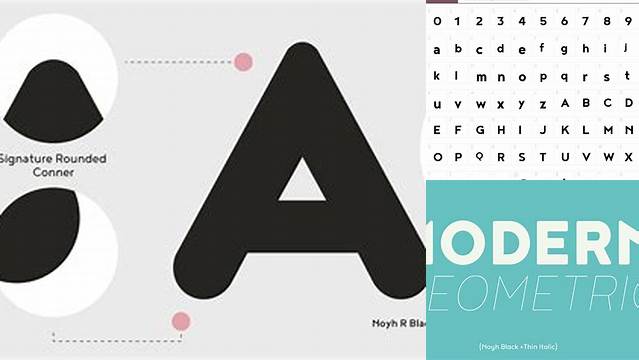
Noyh Bold Font: Free Download & Usage Guide
Are you looking for a modern, bold, and versatile font to elevate your design projects? Look no further! The Noyh Bold font is a fantastic choice for a wide range of applications, from branding and advertising to web design and editorial layouts. In this comprehensive guide, we'll dive deep into everything you need to know about Noyh Bold, including where to find free downloads, how to use it effectively, its characteristics, and more. So, buckle up, design enthusiasts, and let's explore the world of Noyh Bold!
What is Noyh Bold Font?
Noyh Bold is a typeface that falls into the sans-serif category. Sans-serif fonts are characterized by their clean lines and lack of decorative serifs (the small strokes at the ends of letters). This gives them a modern, minimalist, and legible appearance, making them ideal for contemporary designs. Noyh Bold, in particular, is known for its strong, confident character, and excellent readability. The bold weight adds emphasis and visual impact, making it perfect for headlines, titles, and other elements that need to stand out. The appeal of fonts like Noyh Bold lies in their adaptability; they can seamlessly integrate into various design styles, from minimalist and corporate to creative and artistic. The clean lines and strong presence of Noyh Bold make it a go-to choice for designers aiming to convey a sense of modernity and confidence. Its versatility extends beyond print, making it equally effective for digital platforms, including websites and mobile applications. When choosing a font, readability is paramount, and Noyh Bold excels in this aspect. Its clear letterforms and ample spacing ensure that text remains legible even at smaller sizes, making it suitable for body text as well as headlines. Furthermore, the bold weight of the font adds emphasis and visual hierarchy to designs, drawing the viewer's eye to important elements and creating a sense of structure. Noyh Bold's robust design makes it an excellent option for branding projects. Its strong, confident appearance can help businesses convey a sense of authority and professionalism. Whether used in logos, marketing materials, or website designs, Noyh Bold can contribute to a cohesive and impactful brand identity. Designers appreciate fonts that offer a balance of style and functionality, and Noyh Bold strikes this balance perfectly. Its clean aesthetic and clear legibility make it a practical choice for a wide range of design projects, while its bold weight and modern character add a touch of sophistication and visual interest. From crafting compelling headlines to designing user-friendly interfaces, Noyh Bold empowers designers to create impactful and engaging visual experiences. In summary, Noyh Bold is a versatile and reliable font that embodies the essence of modern design. Its clean lines, bold weight, and excellent readability make it a valuable asset for designers seeking to create impactful and professional-looking projects. Whether you're working on branding materials, website designs, or editorial layouts, Noyh Bold is a font that deserves a place in your typographic toolkit.
Key Characteristics of Noyh Bold
To truly appreciate Noyh Bold, let's delve into its key characteristics. This will help you understand why it's such a popular choice and how to best utilize it in your projects. Some key characteristics are Readability, Bold weight and Modern aesthetic. Readability is a crucial aspect of any font, and Noyh Bold excels in this area. Its clean, uncluttered letterforms and generous spacing ensure that text remains legible even at smaller sizes. This makes it suitable for a wide range of applications, from body text in articles and websites to captions and labels in infographics and presentations. The font's clear and straightforward design minimizes ambiguity and allows readers to effortlessly process the information presented. In today's fast-paced digital environment, where attention spans are shorter than ever, readability is paramount. Fonts like Noyh Bold that prioritize clarity and legibility can help designers capture and retain their audience's attention. By choosing a font that is easy on the eyes, designers can enhance the user experience and ensure that their message is effectively communicated. Furthermore, Noyh Bold's readability makes it an accessible choice for individuals with visual impairments or reading difficulties. Its clear letterforms and ample spacing can help improve comprehension and reduce eye strain, making it an inclusive option for a diverse audience. In addition to its inherent readability, Noyh Bold's bold weight further enhances its visual clarity. The thicker strokes of the bold weight create a stronger contrast against the background, making the text stand out and improving its legibility, especially in headlines and titles. The bold weight adds a sense of emphasis and visual impact to the font. This makes it ideal for headlines, subheadings, and call-to-action buttons where you want to grab the reader's attention. The bold weight also works well for highlighting important information within paragraphs or bullet points. However, it's crucial to use bold weight judiciously. Overusing bold can lead to visual clutter and diminish its impact. It's best to reserve bold for key elements and use it strategically to create a visual hierarchy and guide the reader's eye. Experiment with different font weights and sizes to find the right balance and ensure that your design remains clean and uncluttered. In addition to its functional benefits, the bold weight of Noyh Bold also contributes to its overall aesthetic appeal. The thicker strokes add a sense of strength and confidence to the font, making it a suitable choice for brands and businesses that want to project an image of authority and reliability. In summary, Noyh Bold's bold weight is a versatile and powerful tool that can enhance the readability, visual impact, and overall aesthetic of your designs. Its clean lines and minimalist style reflect a modern aesthetic that is both timeless and contemporary. This makes it a great choice for businesses and brands that want to project a sleek, sophisticated image. The absence of serifs gives it a clean, uncluttered look that is visually appealing and easy to read. This makes it an excellent choice for digital platforms, where readability is paramount. The minimalist nature of Noyh Bold also allows it to pair well with other fonts, giving designers flexibility in creating visually dynamic compositions. It can be combined with a serif font for body text to create a contrast that is both visually appealing and highly legible. Alternatively, it can be paired with another sans-serif font for a more cohesive and modern look. The versatility of Noyh Bold extends to various design styles, from minimalist and corporate to creative and artistic. Its clean lines and strong presence make it a valuable asset for designers seeking to create impactful and engaging visual experiences. Whether you're designing a website, a logo, or marketing materials, Noyh Bold can help you achieve a modern and professional look. In conclusion, the modern aesthetic of Noyh Bold is one of its defining characteristics. Its clean lines, minimalist style, and versatility make it a popular choice among designers seeking to create contemporary and visually appealing designs.
The Noyh Bold font is a fantastic asset for any designer's toolkit. Its bold weight, modern aesthetic, and excellent readability make it suitable for a wide range of projects. Remember to download from reputable sources and always respect font licenses. Now you're equipped with the knowledge to find, download, and use Noyh Bold effectively! So go ahead, guys, and unleash your creativity with this awesome font!